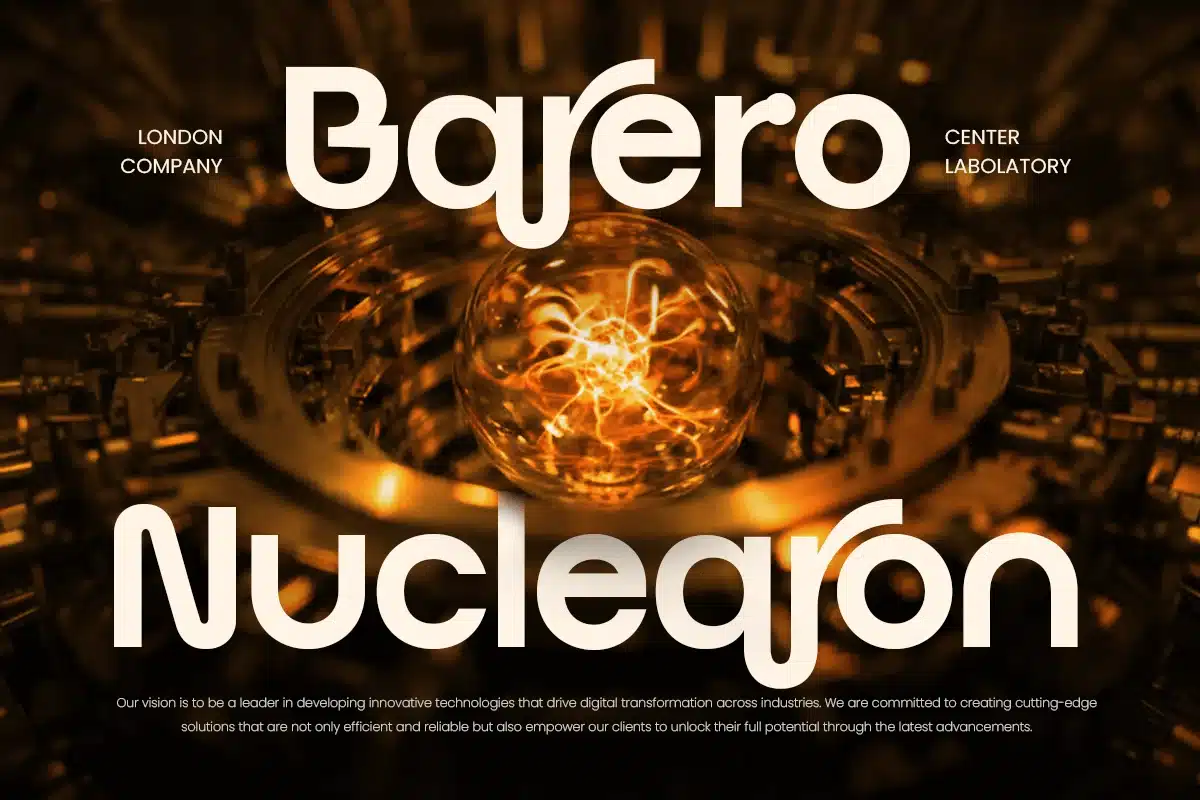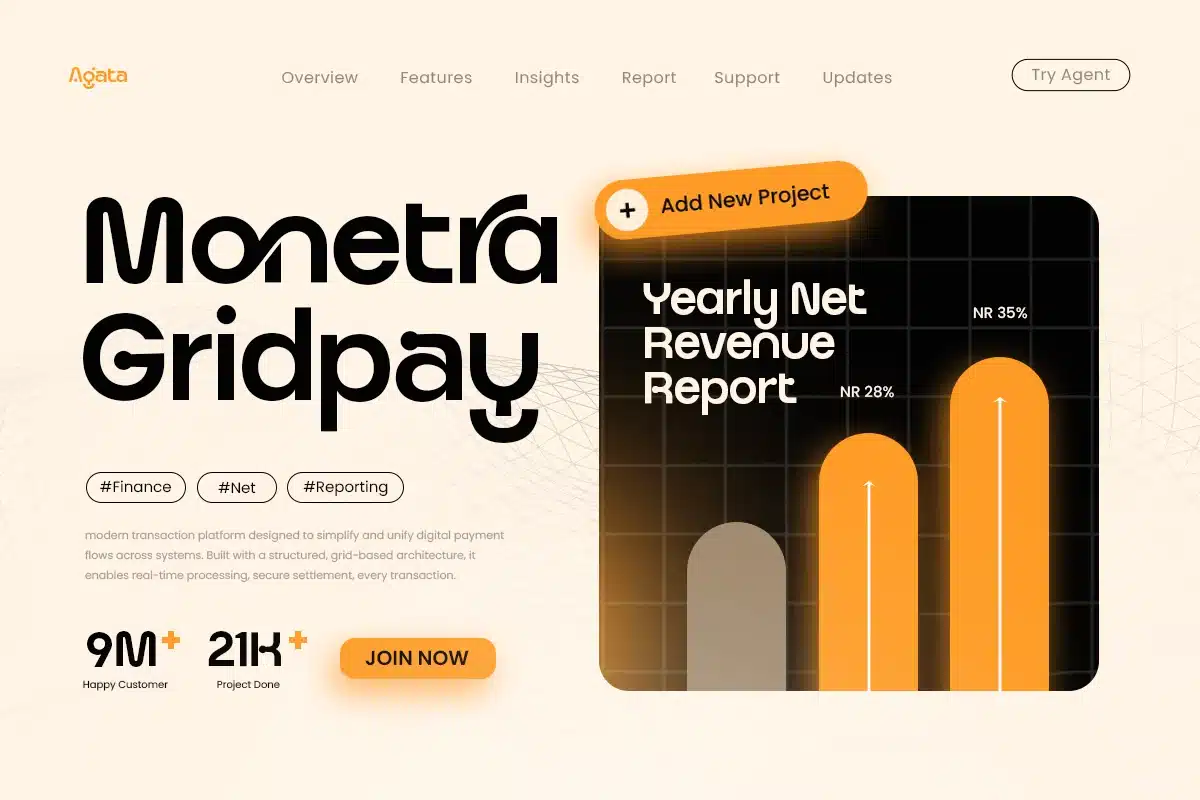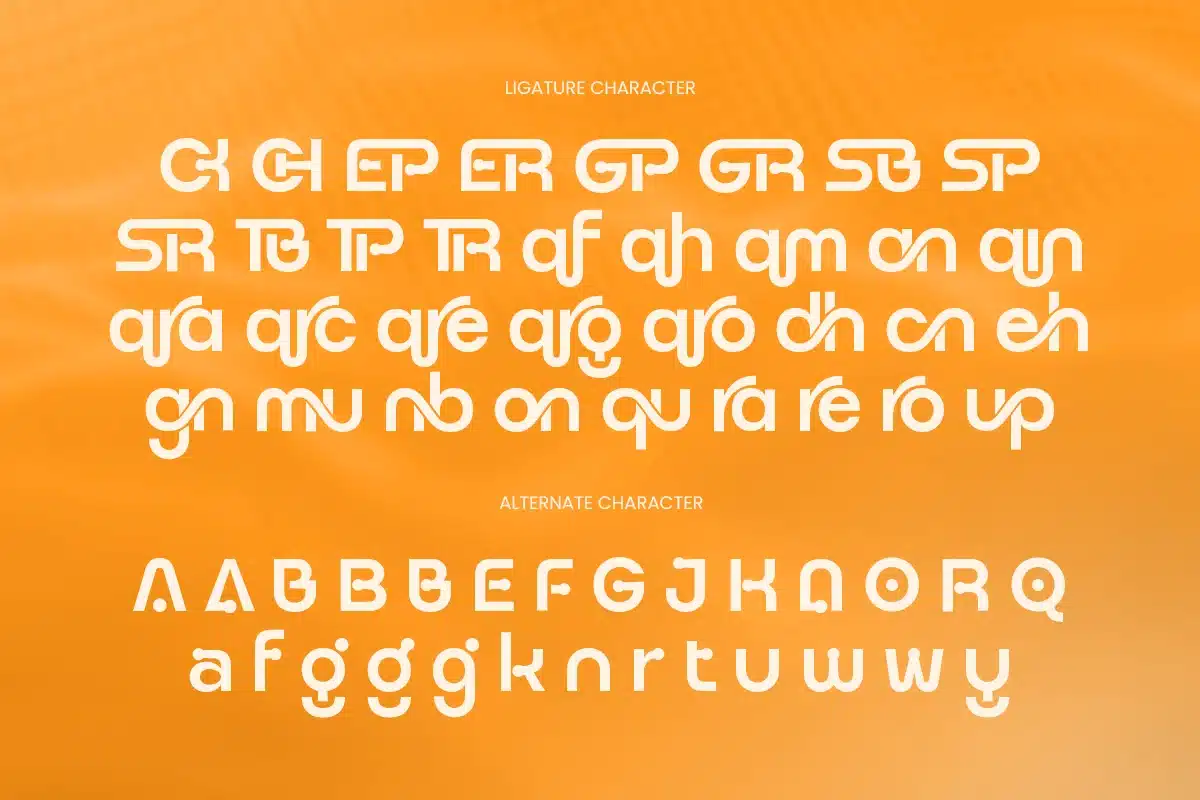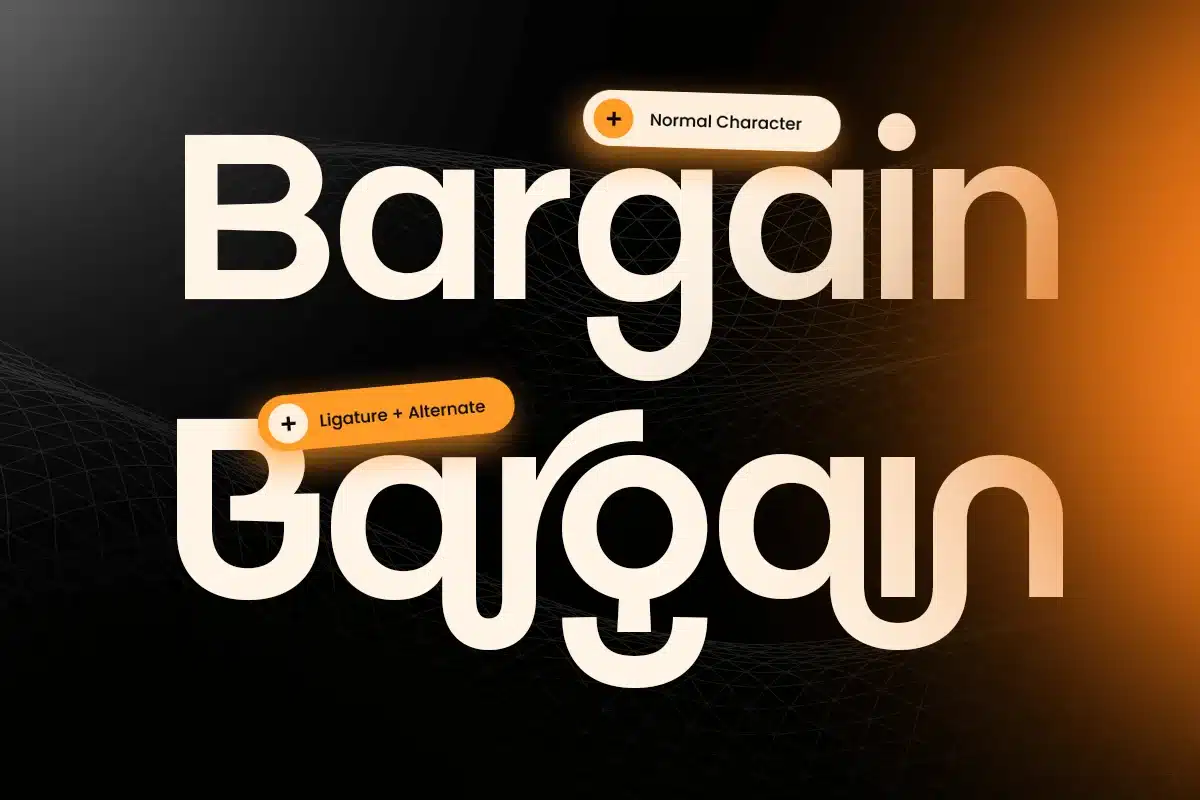
Bargain – Logo Branding Corporate Font
Bargain is a logo branding corporate font crafted to deliver clarity, trust, and professional consistency. Designed with clean structure and balanced proportions, this typeface creates a confident business tone that feels modern, reliable, and highly brand-ready.
Built for corporate communication and identity systems, Bargain works seamlessly across logos, wordmarks, company profiles, presentations, reports, website headers, UI design, signage, brochures, and social media content. Its clean forms keep typography readable and polished, helping brands look organized and credible across both digital and print layouts.
Whether you’re building a startup identity, refreshing a corporate brand system, or designing professional marketing materials, Bargain provides a strong typographic foundation that keeps your message sharp, clear, and consistently professional.
Inspiration Behind Bargain
Bargain is inspired by modern corporate typography and clean identity systems—where clarity, structure, and legibility build trust. The design focuses on balanced geometry and professional rhythm to support business branding, corporate communication, and digital-first design with a straightforward, confident feel.
Bargain Font Features:
- Clean corporate letterforms optimized for branding and logo design
- Professional structure for business identity consistency
- High readability for headlines, documents, and UI typography
- OpenType features for polished professional typesetting
- Corporate logos, wordmarks, and brand identity systems
- Business presentations, reports, and company profiles
- Websites, dashboards, UI/UX, and digital product typography
- Brochures, signage, posters, and professional marketing layouts
- Social media branding, ads, and corporate communication materials
Build a confident business identity with Bargain—crafted for corporate branding with clean, professional clarity. ✨